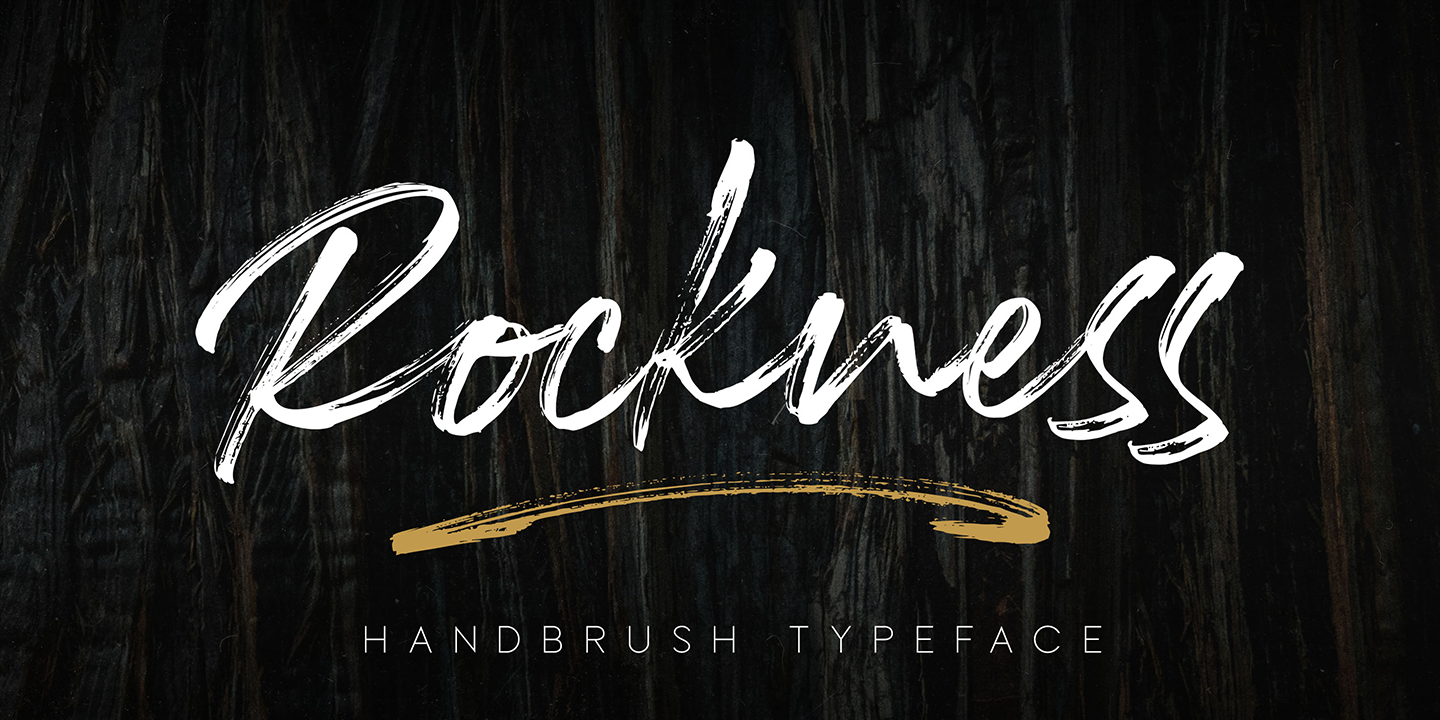
The Rockness Font is a powerful and impactful typeface, designed to convey a sense of raw energy, ruggedness, and an unyielding spirit. Its often distressed textures, bold forms, or angular features make it an excellent choice for heavy metal album art, extreme sports branding, adventure gear packaging, gritty movie posters, urban streetwear designs, and any project that needs to project strength and defiance. Whether you’re crafting an aggressive slogan or a brand identity that embodies unbridled power, this font will inject your project with an undeniable force and an edgy, raw sensibility.
What makes the Rockness Font so exciting is its ability to instantly command attention and resonate with themes of endurance and powerful expression. It's perfect for designers who want to evoke a sense of rebellion, resilience, or a raw, authentic aesthetic. This font stands out by offering a unique visual voice that is both intimidating and captivating, making any text it graces feel monumental and significant. Its strong, often textured structure ensures high legibility even at its extreme weights, guaranteeing that your message is delivered with maximum impact and clarity, perfect for making a bold, untamed statement.
The Rockness Font typically offers a focused set of features to support its distinctive style. While specific offerings may vary depending on the font package, you can generally expect to find a Regular weight, often accompanied by a Bold or Heavy version to amplify its inherent strength and imposing presence. Some versions of the Rockness Font Free Download might also include alternate characters or unique stylistic details that enhance its distressed or rugged appearance, allowing for even greater thematic depth and creative flexibility. These features ensure that the Rockness Font can be adapted to almost any design requirement where a strong, raw, or powerfully rebellious statement is desired, maintaining its consistent impactful charm throughout your project.